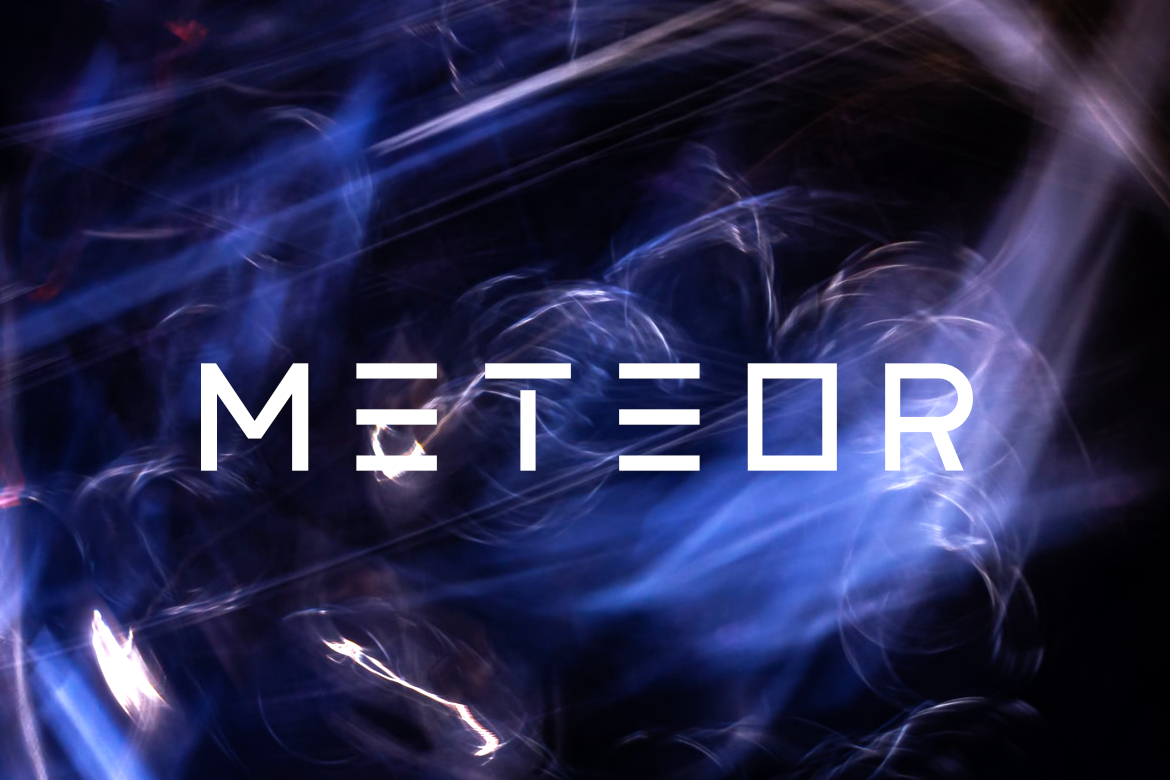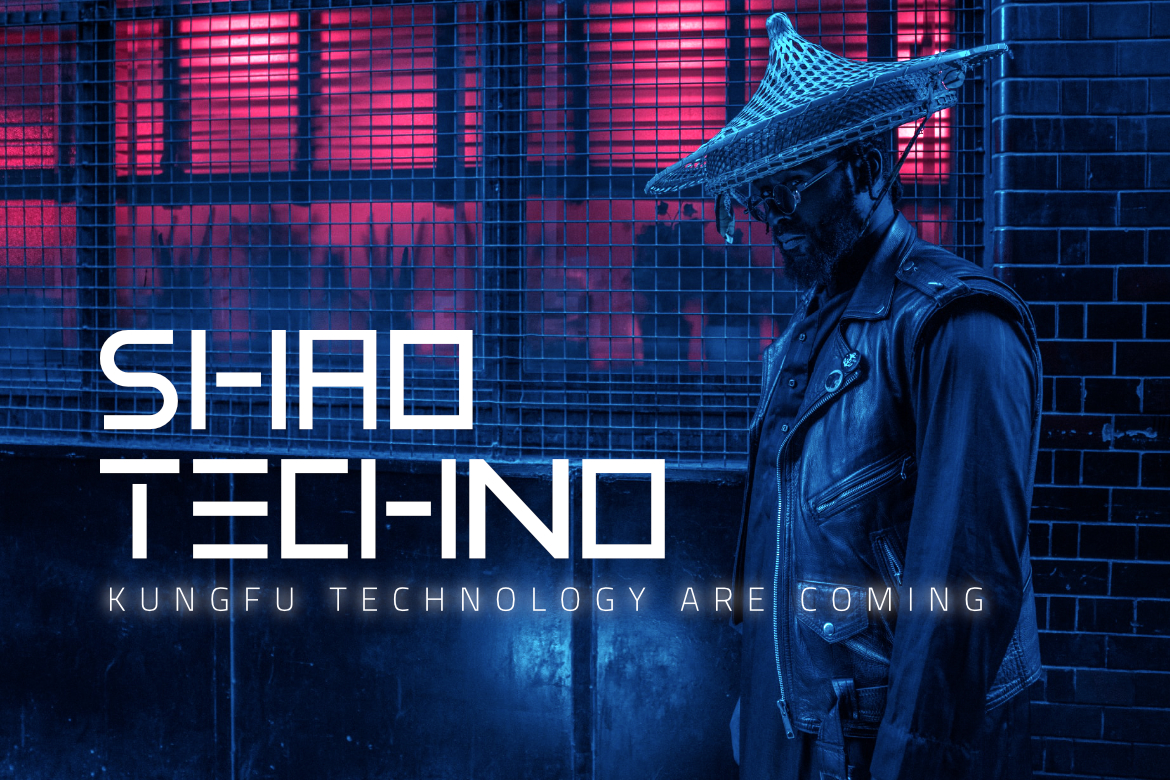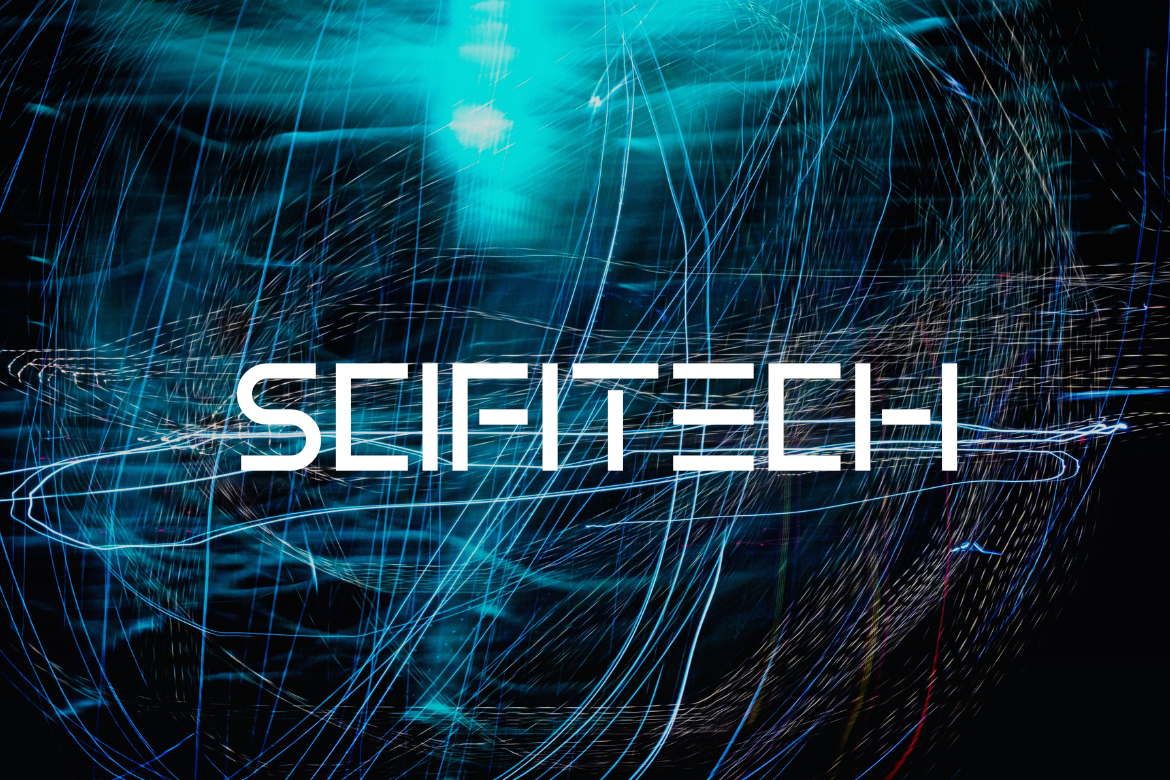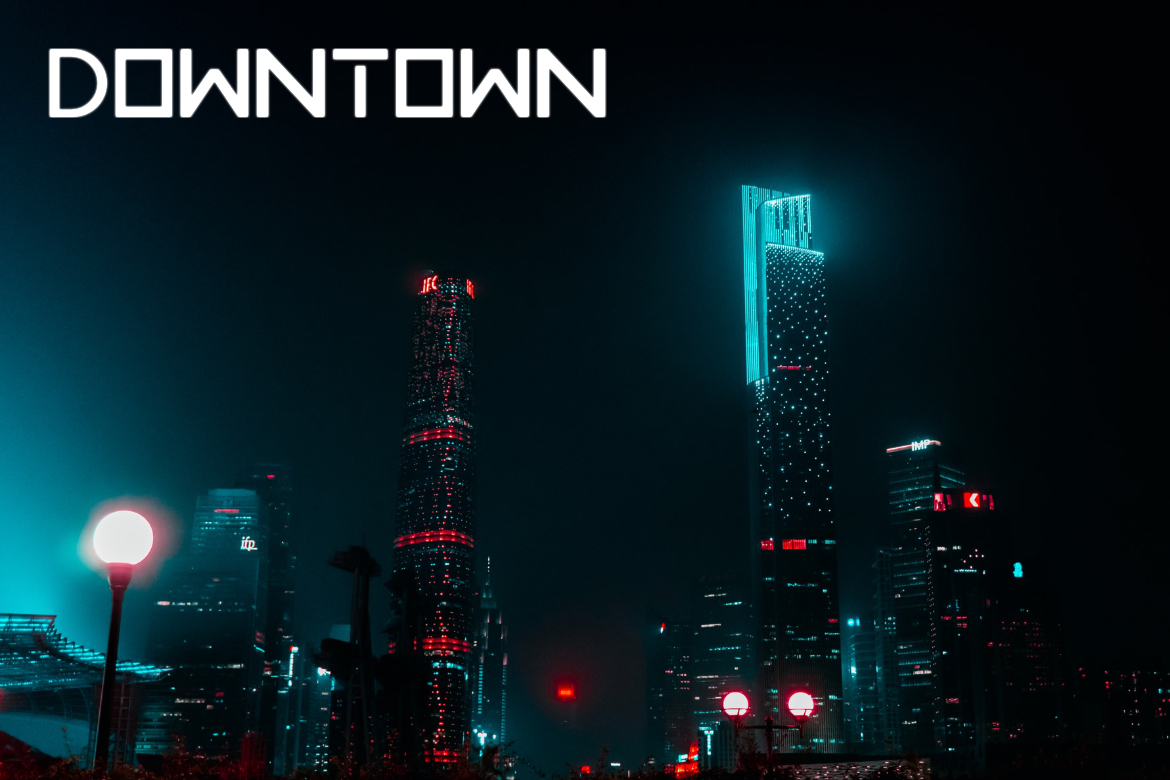
Vemanem Font
Vemanem Display Font
This is a modern and cool display font. No matter the topic, this font will be an incredible asset to your fonts’ library, as it has the potential to elevate any creation.